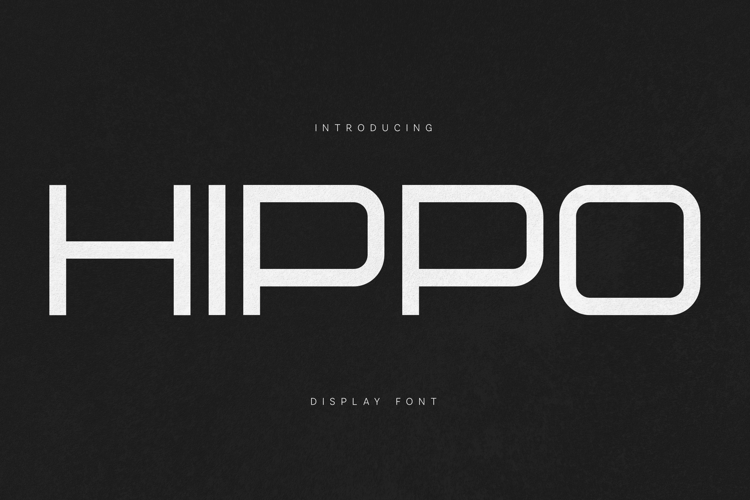
Hippo Modern Futuristic Display Font
Hippo is a modern futuristic display font designed with smooth geometry, soft corners, and clean structural balance. The typeface blends technological precision with approachable rounded forms, creating a unique visual tone that feels both futuristic and accessible.
The letterforms are constructed with uniform stroke weight and rounded terminals, giving the typeface a strong contemporary presence while maintaining excellent readability at large sizes. Its structured geometry allows words to appear compact, stable, and visually striking across different layouts.
Hippo was developed as a display-focused typeface, making it ideal for bold headlines, modern branding, digital interfaces, technology-driven design projects, and contemporary visual systems where typography plays a central visual role.
The shapes are intentionally minimal yet expressive, allowing designers to build strong typographic compositions without unnecessary visual noise. This makes Hippo particularly effective for projects that aim for a clean, futuristic, and forward-looking aesthetic.
Hippo works exceptionally well in:
- technology branding
- digital product design
- modern poster layouts
- sci-fi themed graphics
- contemporary visual identities
- interface typography
- headline and title compositions
Because of its smooth geometry and modern proportions, Hippo can create a strong typographic rhythm across titles and layouts, helping designers build clear hierarchy and visual impact.
Hippo combines minimal structure, futuristic character design, and contemporary geometry, making it a versatile typeface for designers who want typography that feels modern, clean, and visually confident.